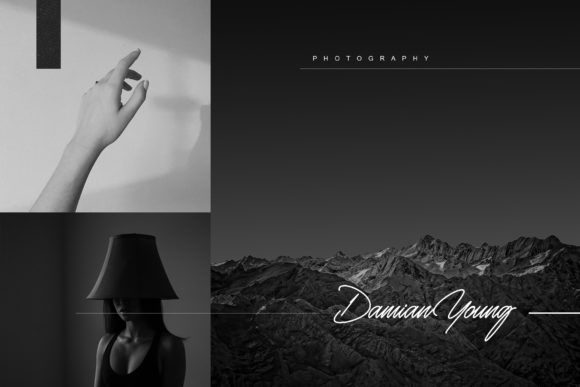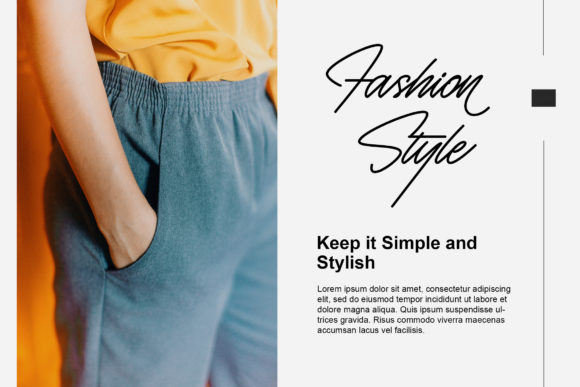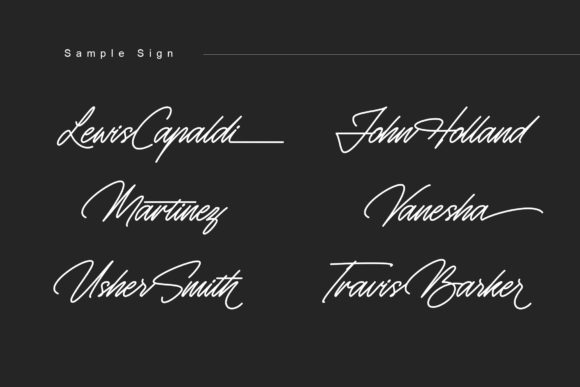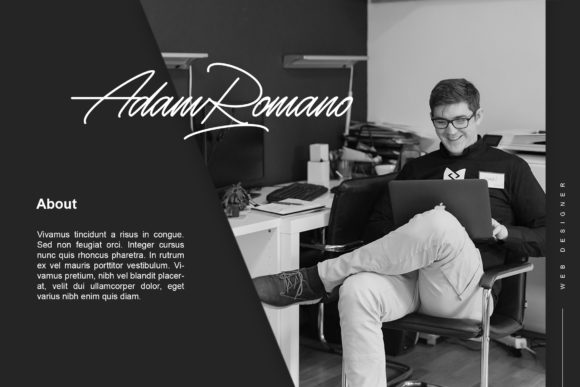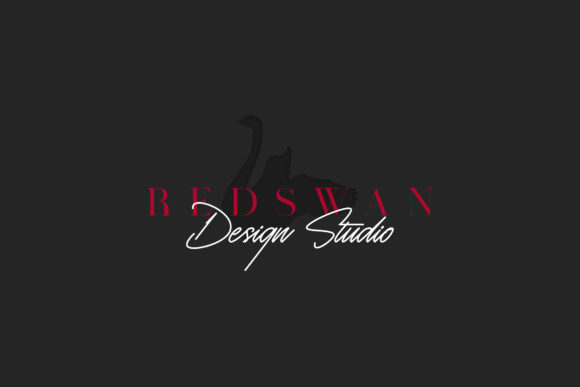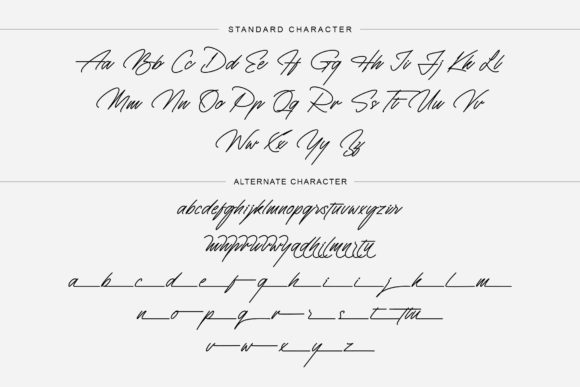
Introduction to Monosign Font
Monosign is a signature script font, featuring a lovely flow.
It has a clean, thin and smooth vibe and it will be a hit for any design that you want to add it to This font is PUA encoded which means you can access all of the glyphs and swashes with ease.